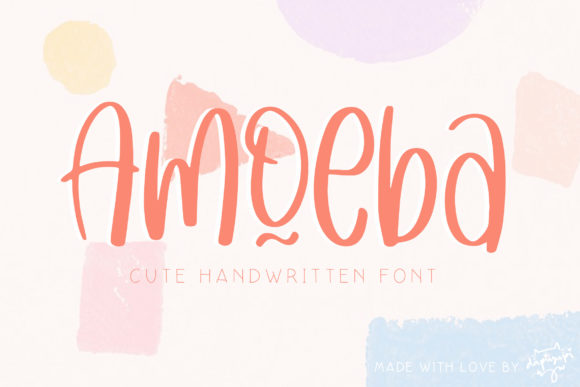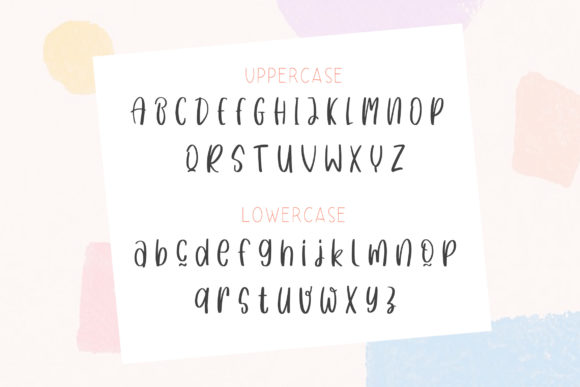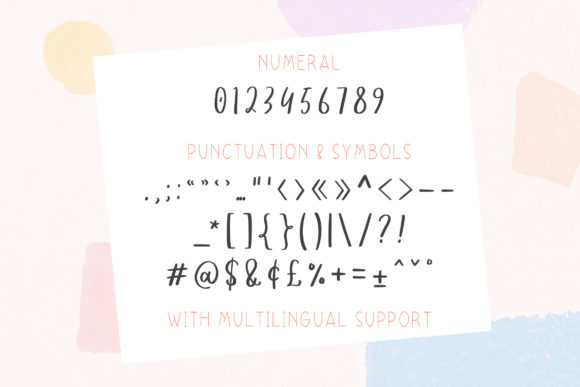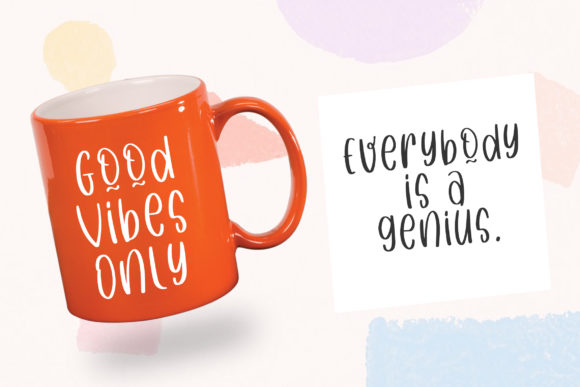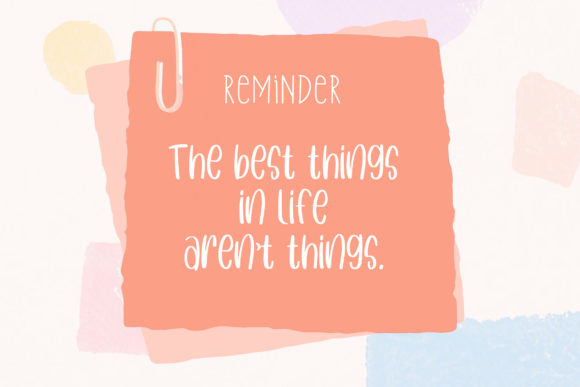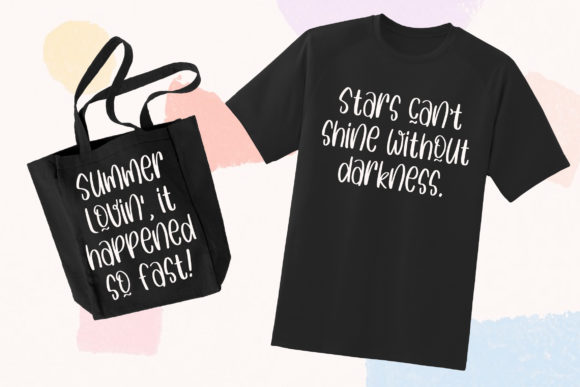
About Amoeba Font
Amoeba is a cute and quirky handwritten font. Sweet and playful, this typeface can elevate the look of any creation ranging from product packaging to business cards, and more!